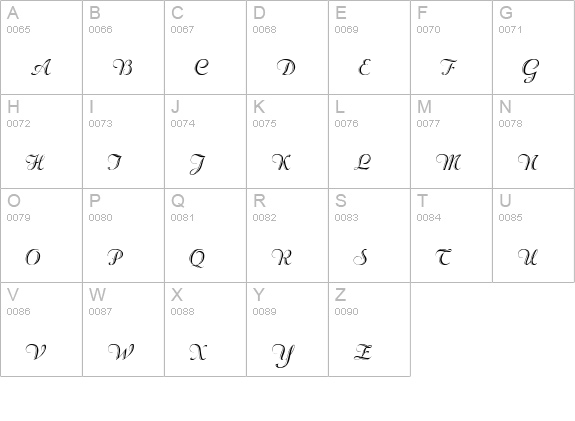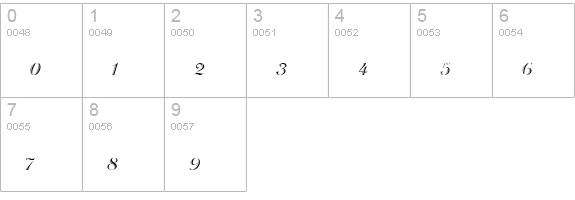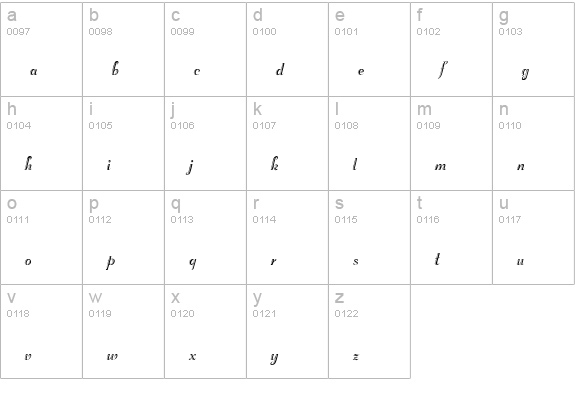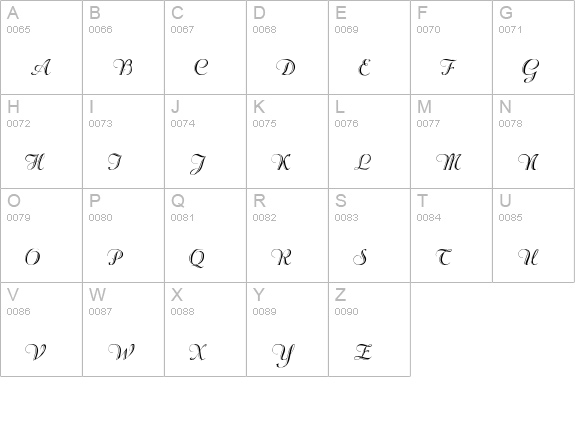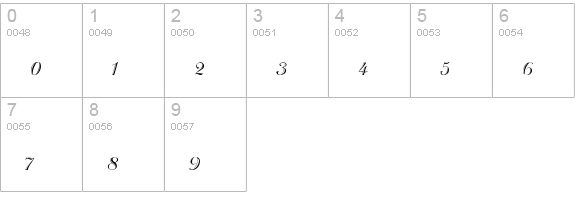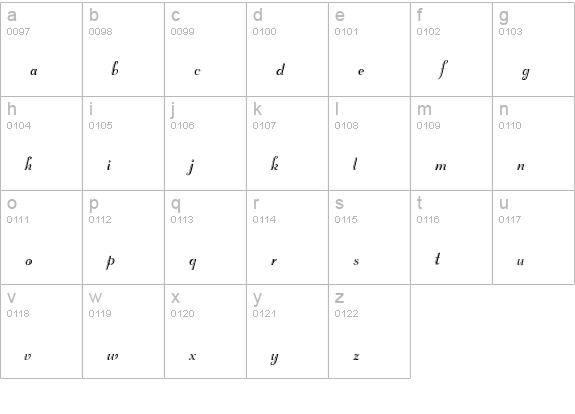
Rechtman Script Font Details
Rechtman Script is a stunning and elegant font that exudes sophistication and class. With its beautiful calligraphic strokes and fluid curves, this font is perfect for adding a touch of grace to any project. Whether you are designing wedding invitations, creating branding materials, or crafting personalized stationery, Rechtman Script will elevate your designs to new heights. Its timeless beauty and delicate details make it a versatile choice for both formal and casual occasions. One of the best things about Rechtman Script is that it is available for free. Yes, you read that right! This amazing font can be downloaded at absolutely no cost from FontsMarket.com. It is a rare gem to find such a high-quality font that doesn't break the bank. Not only is Rechtman Script visually appealing, but it is also incredibly easy to work with. The characters flow seamlessly, making it effortless to create beautiful typography. The font includes an extensive range of ligatures and alternates, allowing you to customize your designs and add that extra touch of uniqueness. Whether you are a professional designer or a DIY enthusiast, Rechtman Script is a must-have in your font collection. Its versatility, elegance, and the fact that it is freely available to download make it an irresistible choice for any project. So, don't miss out on this incredible font – head over to FontsMarket.com and start creating stunning designs today!